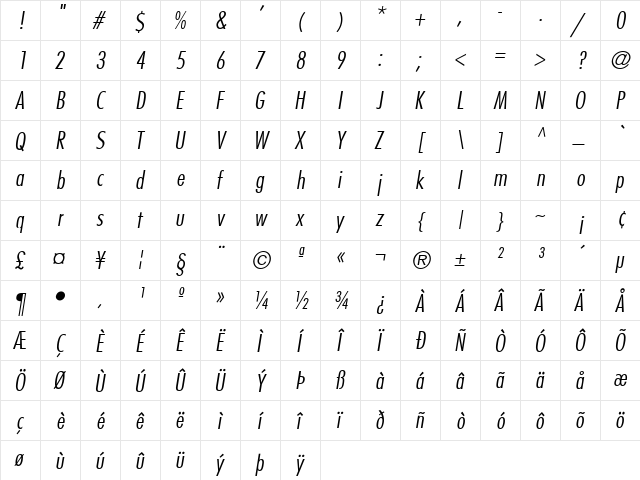
FujiyamaLight Italic Font Preview
Design Context for FujiyamaLight Typeface
FujiyamaLight takes a measured approach to typography — its balanced proportions and neutral character make it a reliable workhorse for both digital and print work. The slanted form adds forward momentum and visual energy. Its slender proportions lend an understated elegance to any composition.
Pro Tip: Try FujiyamaLight for annotation and caption copy alongside an upright companion — the contrast in angle creates a dynamic but ordered typographic system.